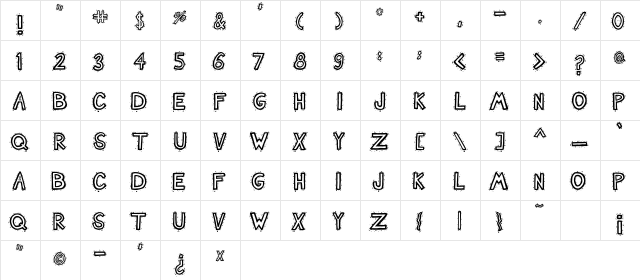
Nash TuckerBlue
Design Context for Nash Typeface
Nash is a composed and adaptable typeface that performs quietly and consistently across a wide range of design contexts.
Pro Tip: Use Nash in both headline and body roles to test its range before committing to a single application.